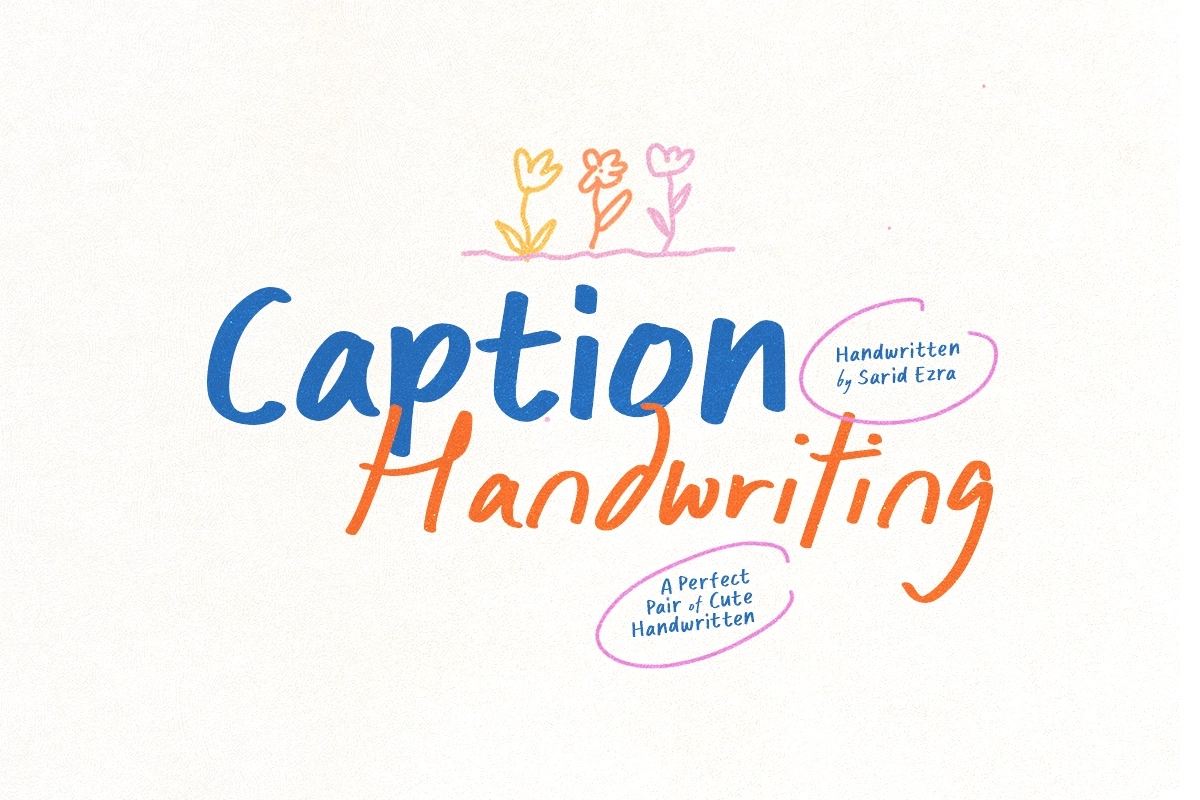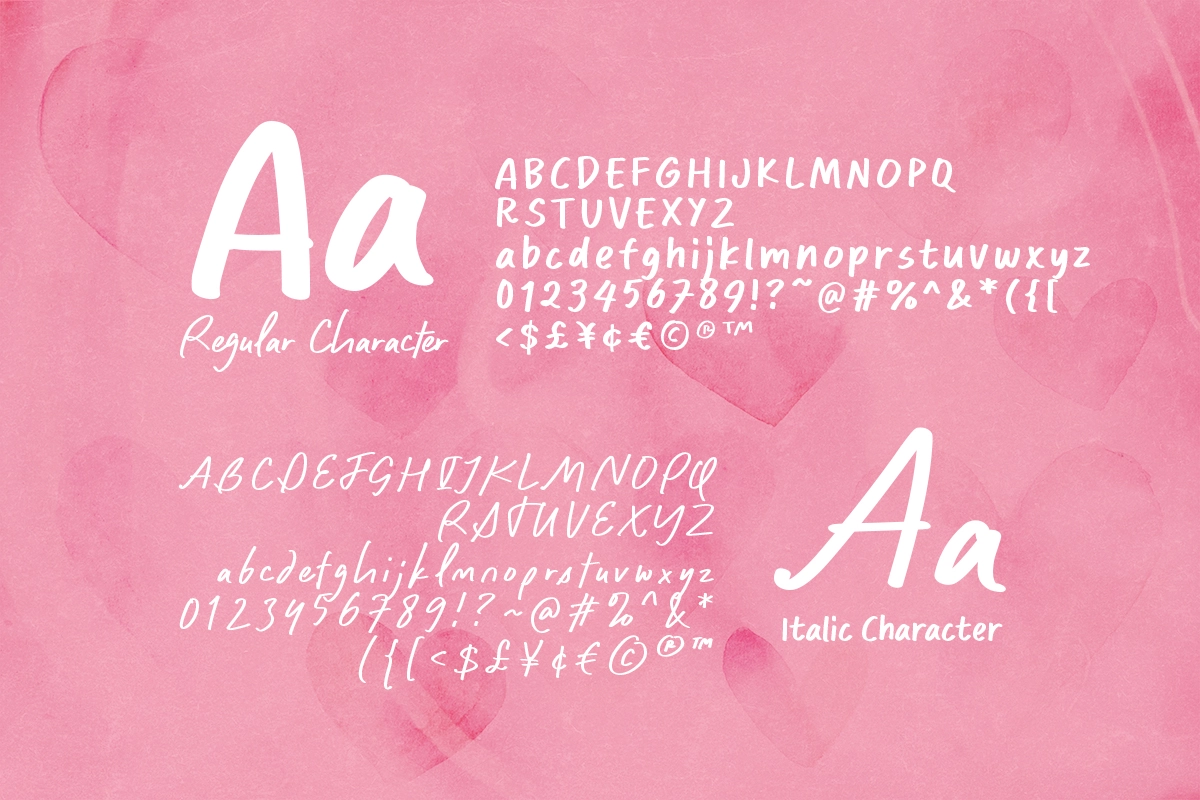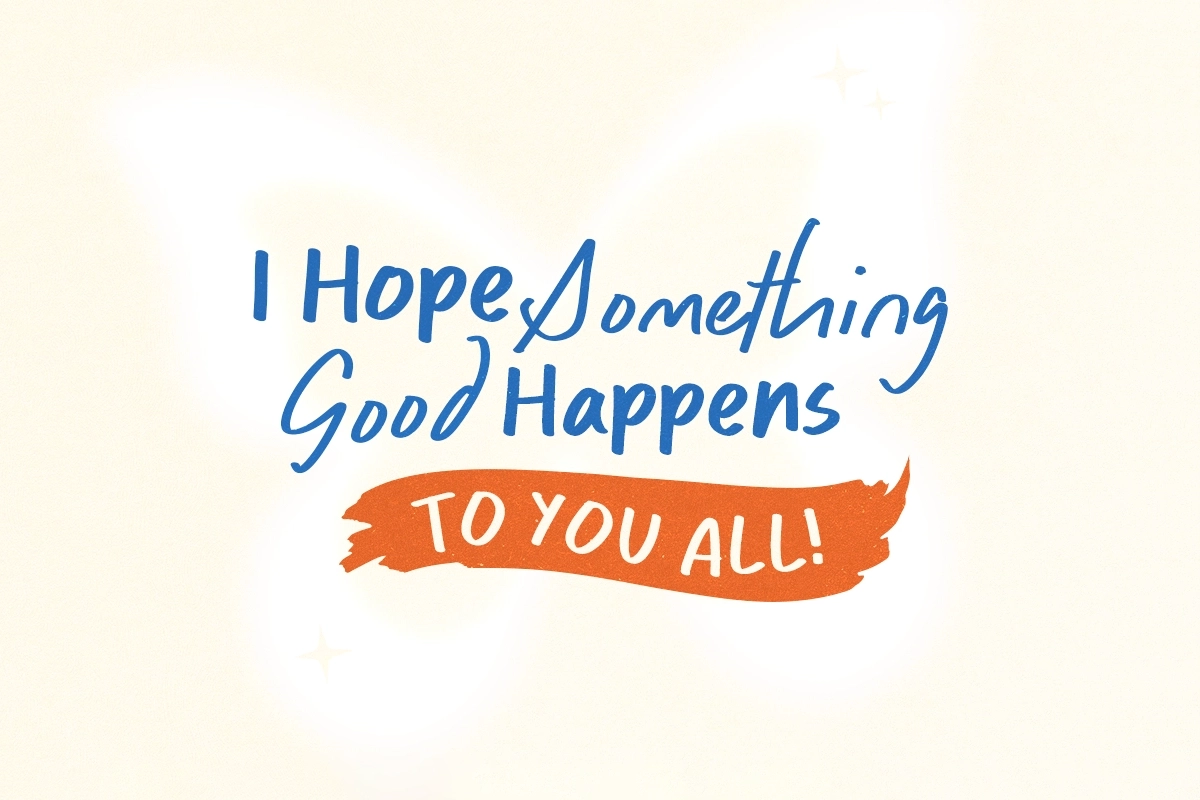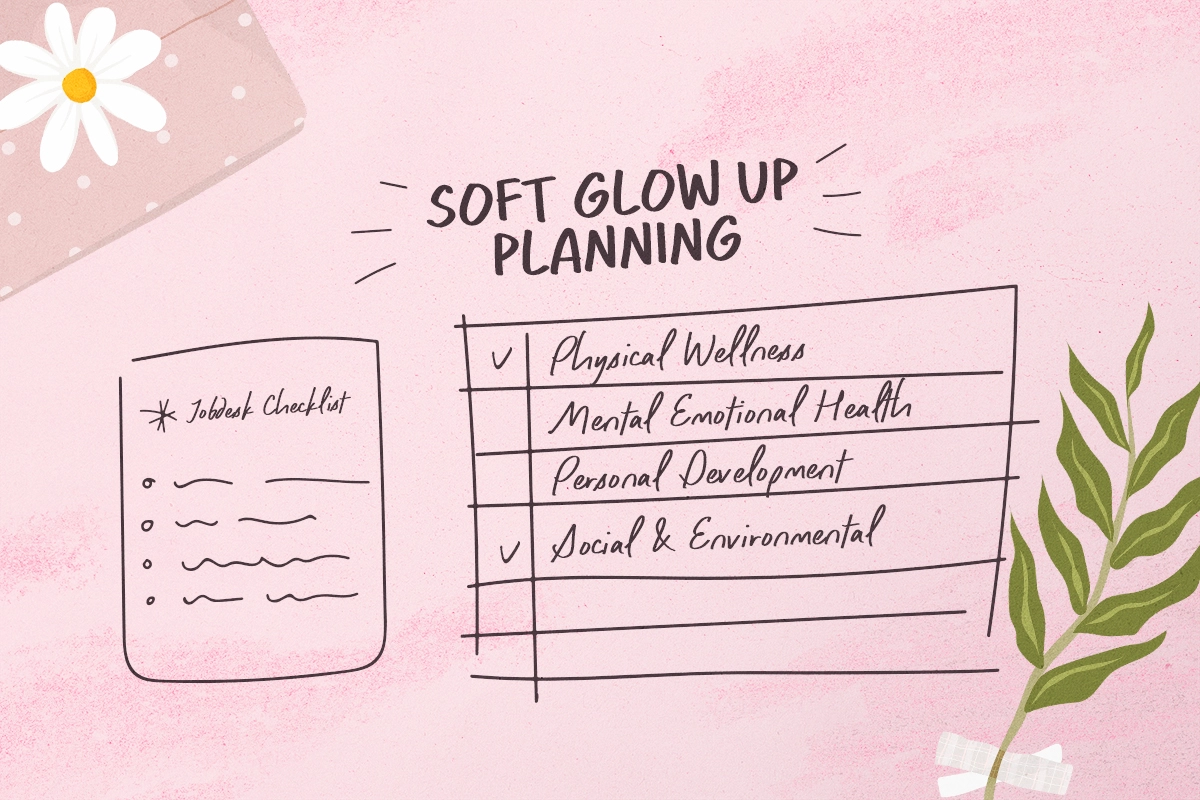
Caption Handwriting - Cute Font Duo
Meet Caption Handwriting—a two-style script that pairs a confident, bold regular with a lively italic signature. Use it for logos, branding suites, packaging, and cute quote cards when you want personality without losing readability. Great for captions and design notes. Multilingual characters included.